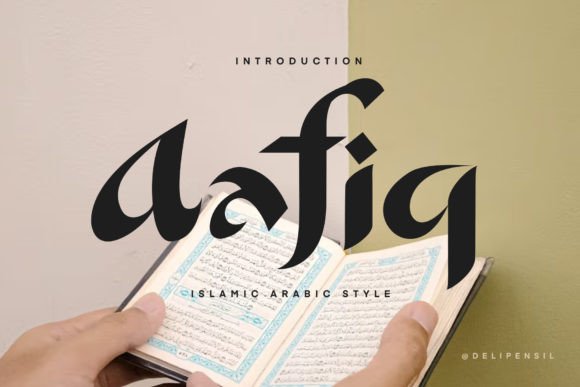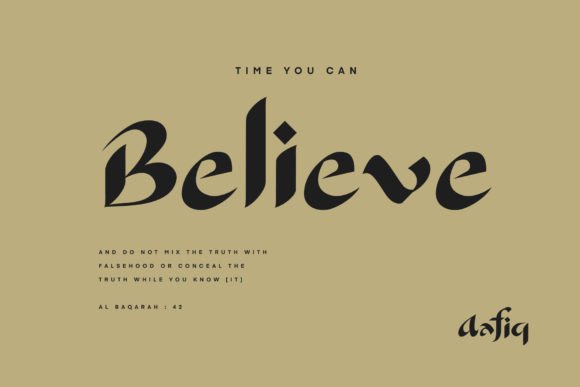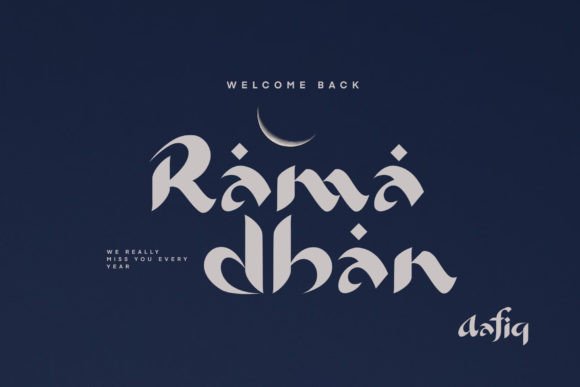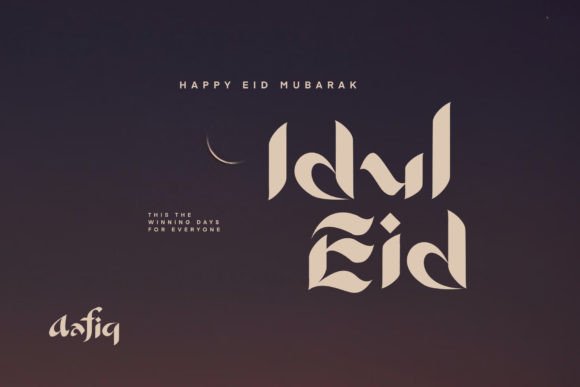
Aafiq Font: Elegant Arabic Font for Branding & Logo Design
About the Aafiq Font
Get ready to be inspired by Aafiq Font, a fresh and dynamic typeface for modern creators. Introduction Aafiq is a sweet and friendly arabic styled font. Its natural and unique style makes it incredibly fitting to a large pool of designs. The only limit is your imagination!
Aafiq’s friendly, natural style works exceptionally well in headlines, branding projects emphasizing approachability, and short-form content like packaging or social media graphics. Its charm is less effective in large blocks of body text or user interface elements where readability is paramount.
Consider pairing Aafiq with a clean sans-serif like Open Sans for a balanced contrast, or a geometric sans-serif for a more modern feel. For a touch of elegance, a delicate serif such as Lora could be used.
Aafiq projects a warm and approachable personality, making it ideal for brands focused on community, family, or handcrafted products. Avoid using it where a bold, serious, or highly professional tone is required.
Aafiq Font Usage Examples